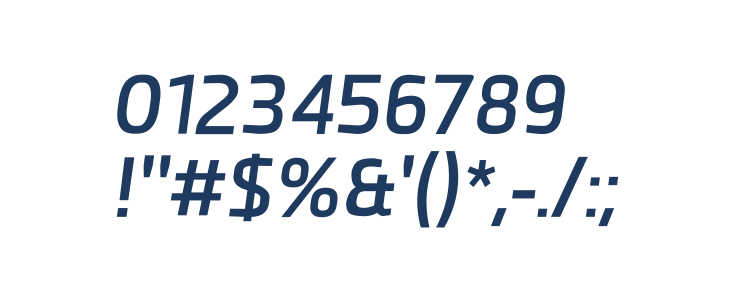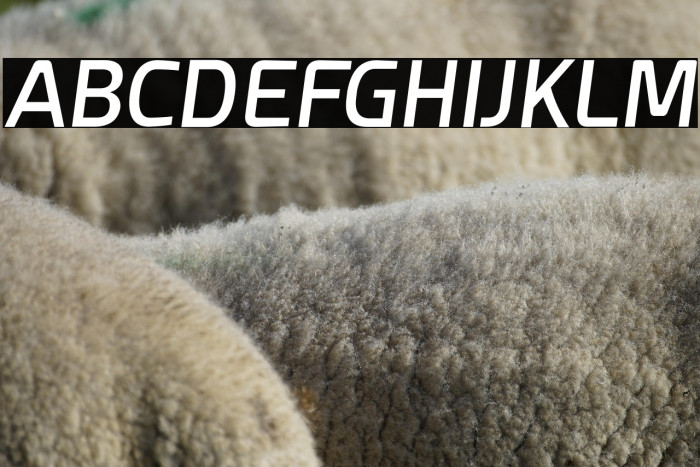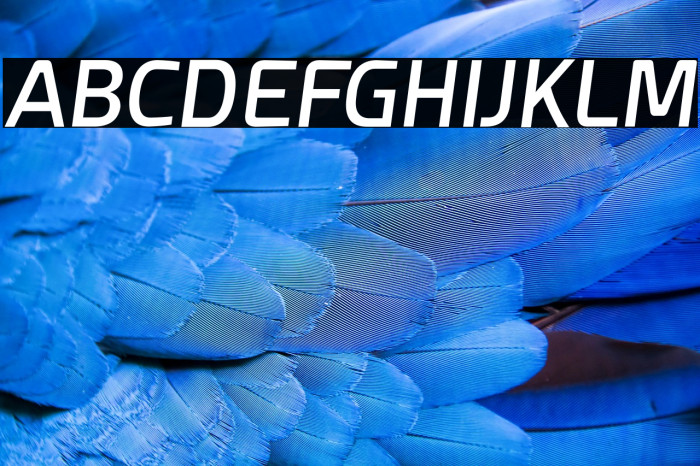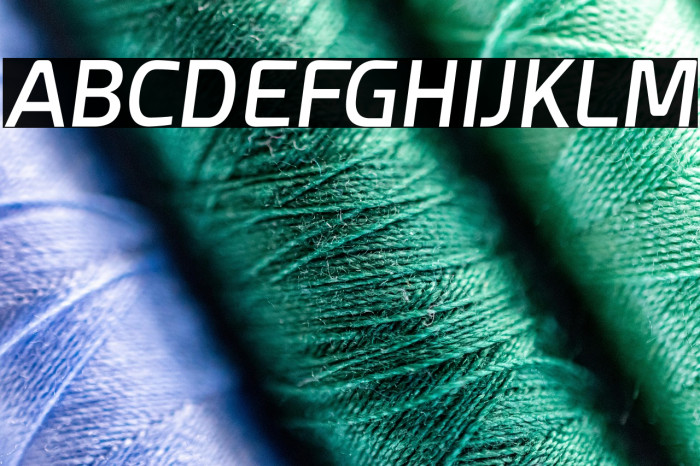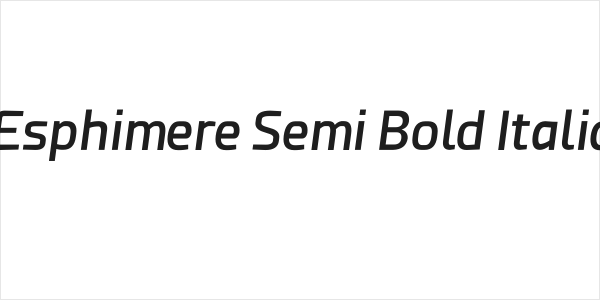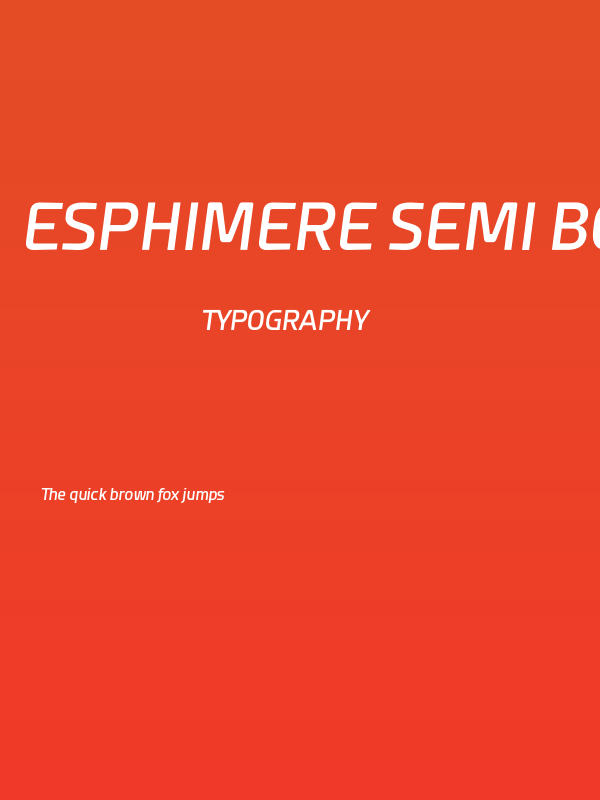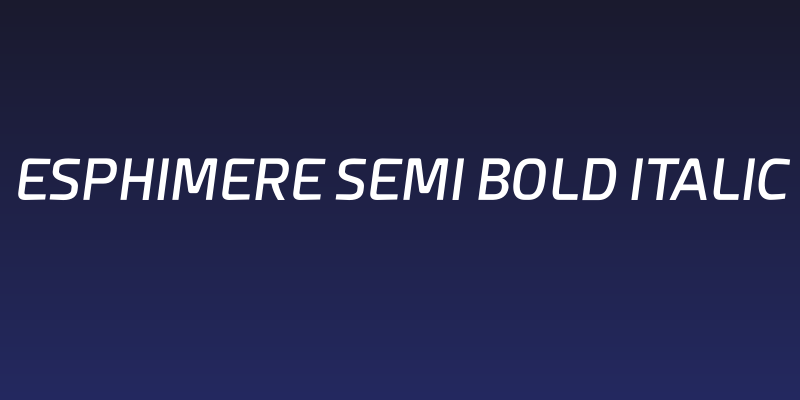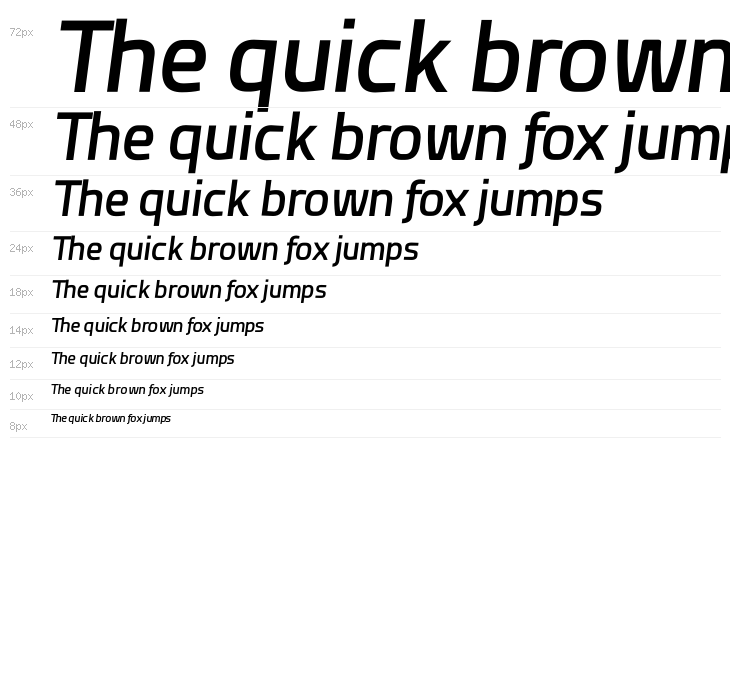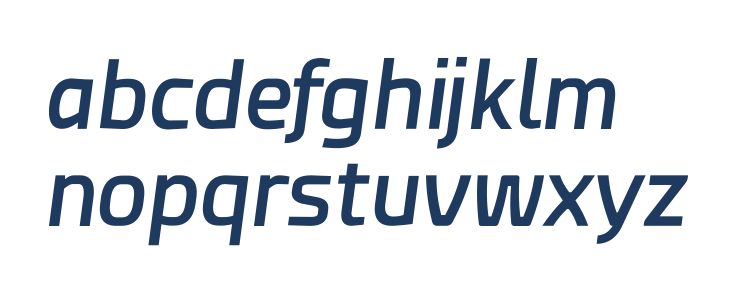
Esphimere Semi Bold Italic Font
Esphimere Semi Bold Italic Description
This typeface features a sleek and modern design with a semi-bold weight, providing a strong yet elegant appearance. The italic style adds a dynamic and forward-leaning character, making it suitable for conveying motion and emphasis. The characters are well-proportioned with a slight slant, enhancing readability while maintaining a stylish look. The font includes a full set of uppercase and lowercase letters, numerals, and a variety of special characters, ensuring versatility for different design needs. Its clean lines and contemporary feel make it an excellent choice for projects that require a modern touch.
| Use Case | Headlines, Branding, Digital Media |
| Proposed Projects | Ideal for branding, advertising, headlines, and digital media where a modern and dynamic appearance is desired. |